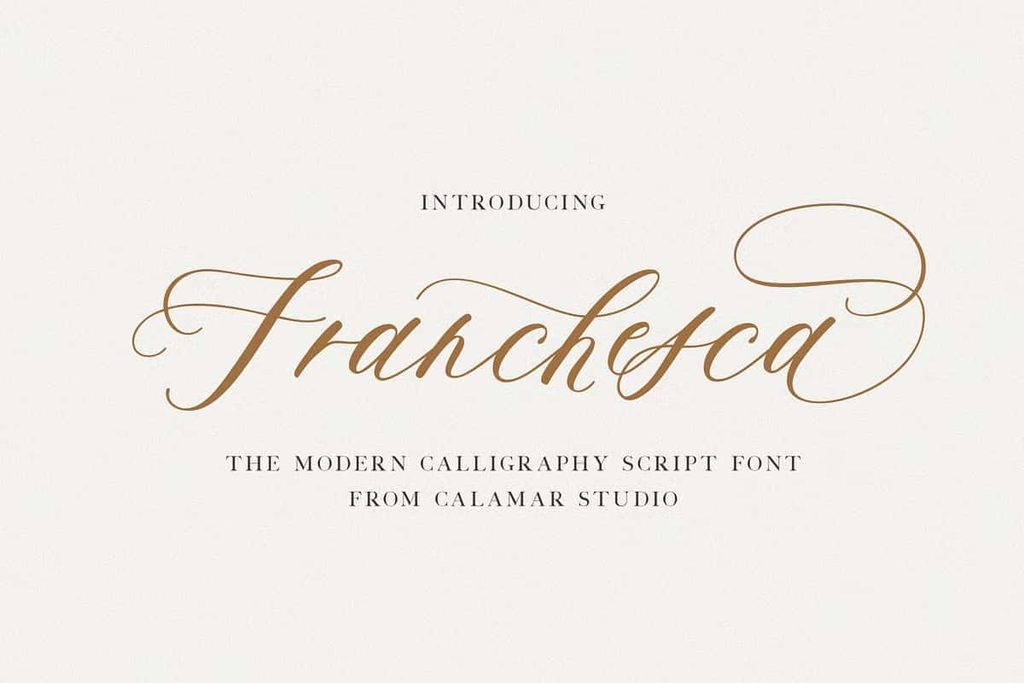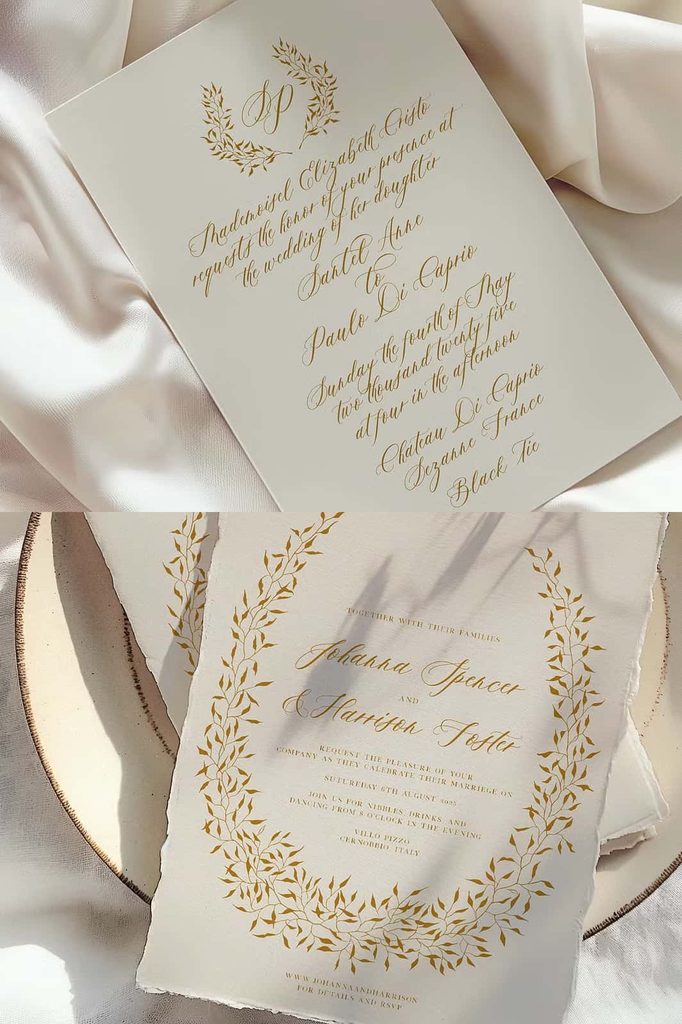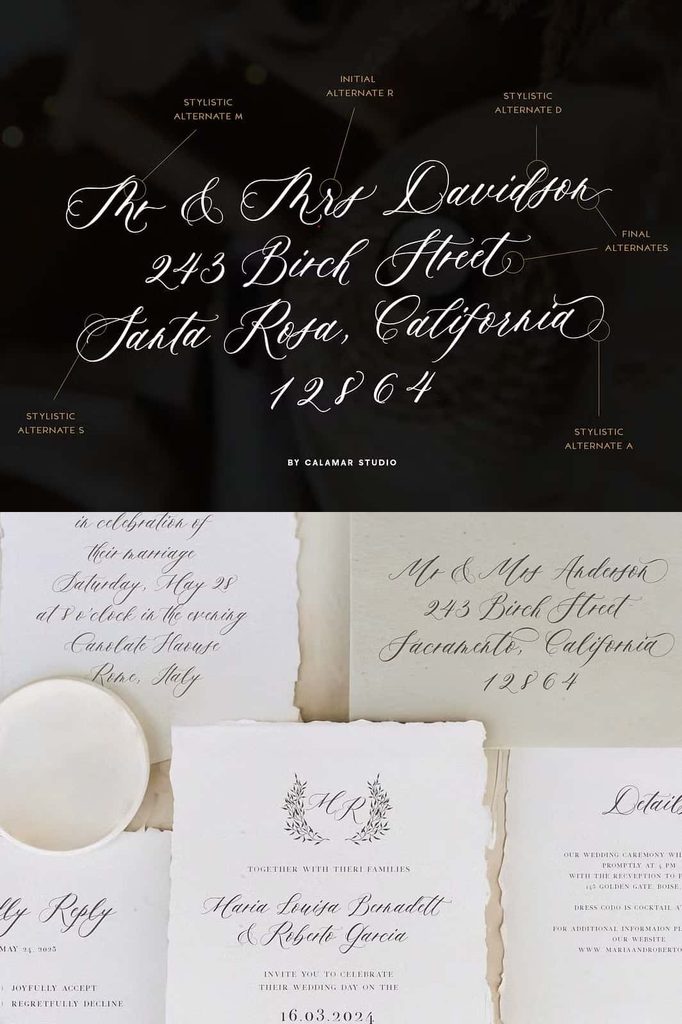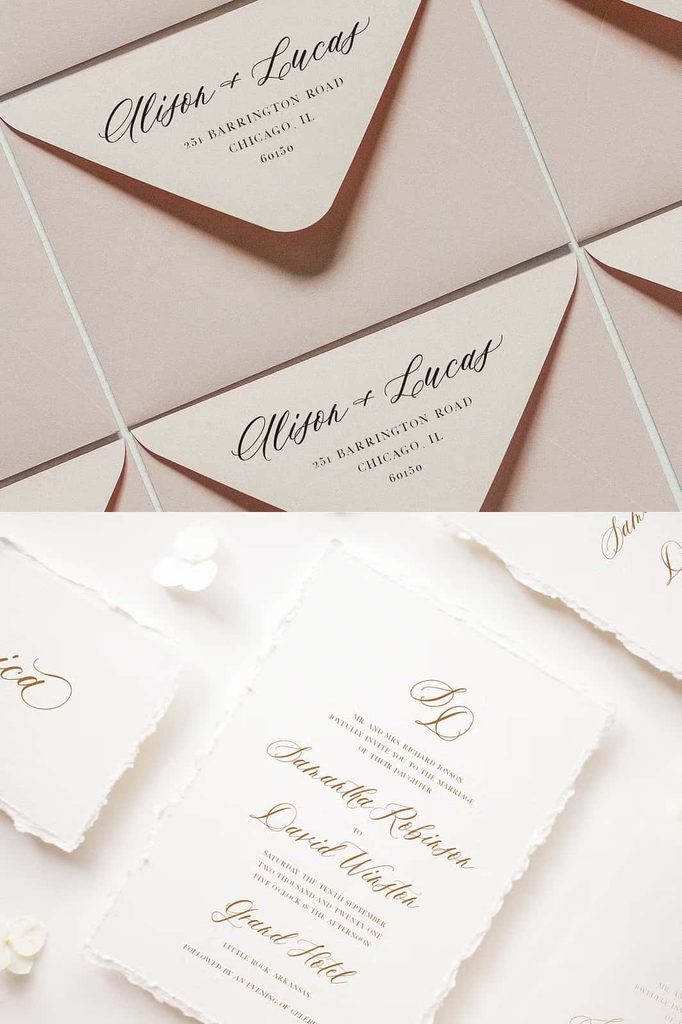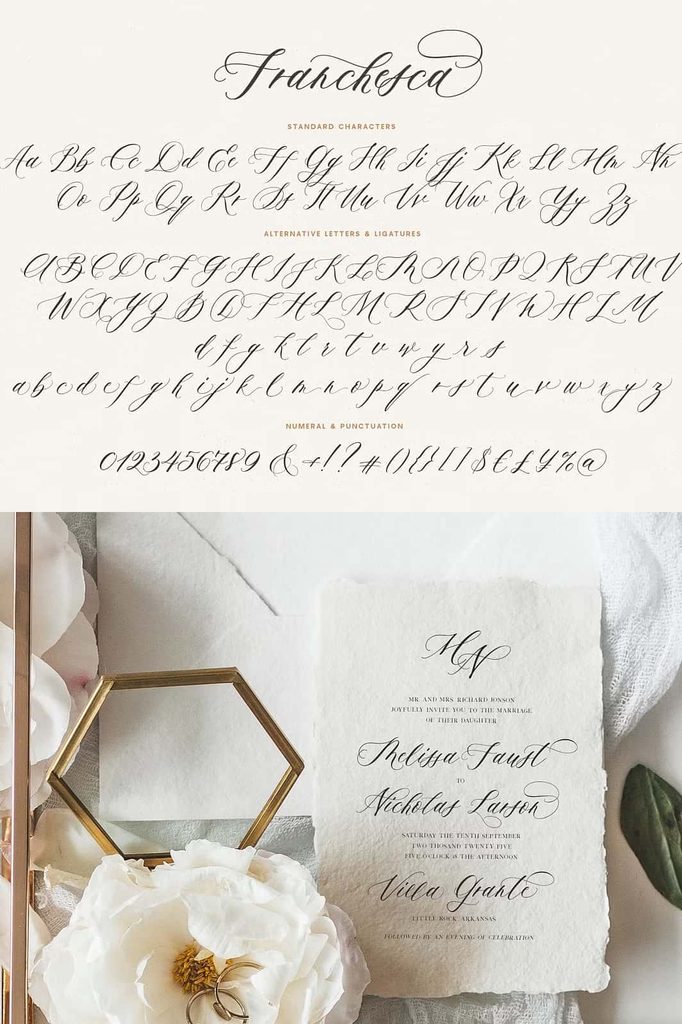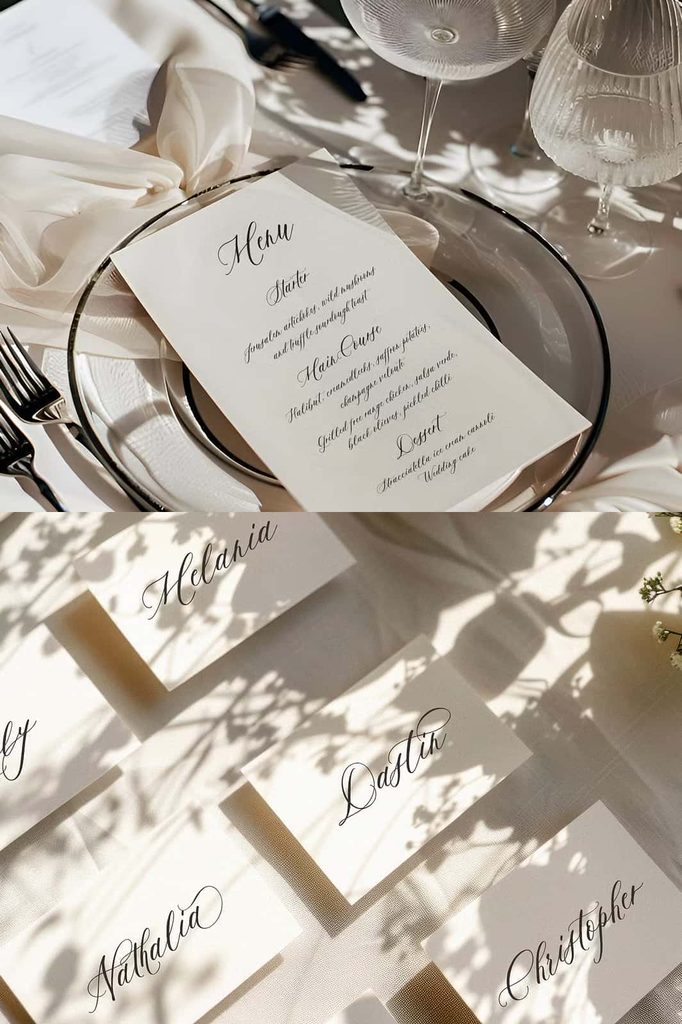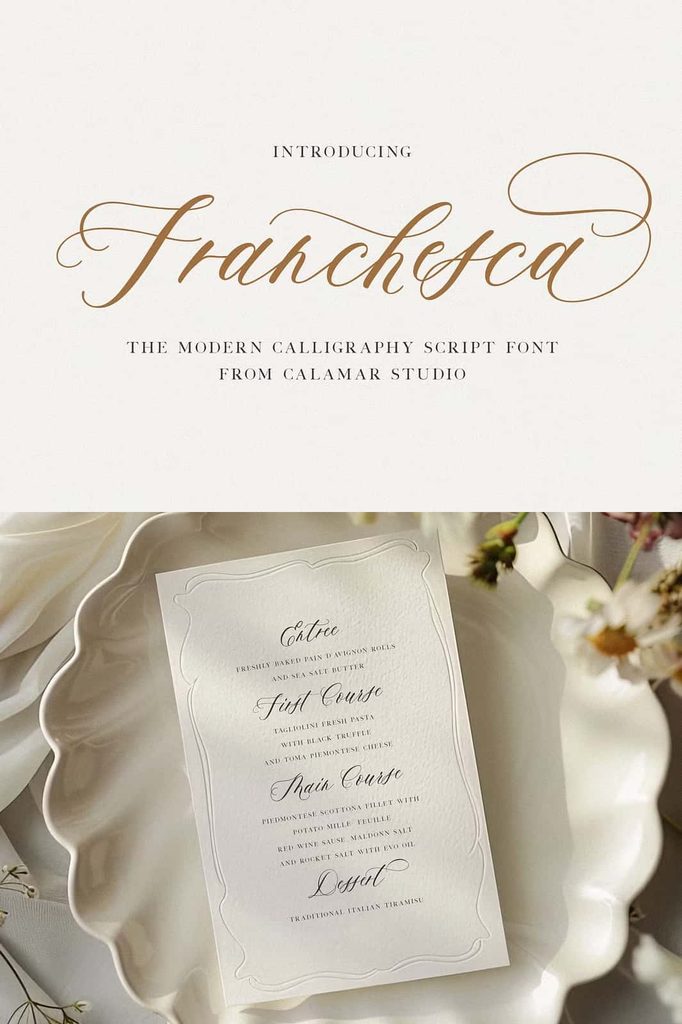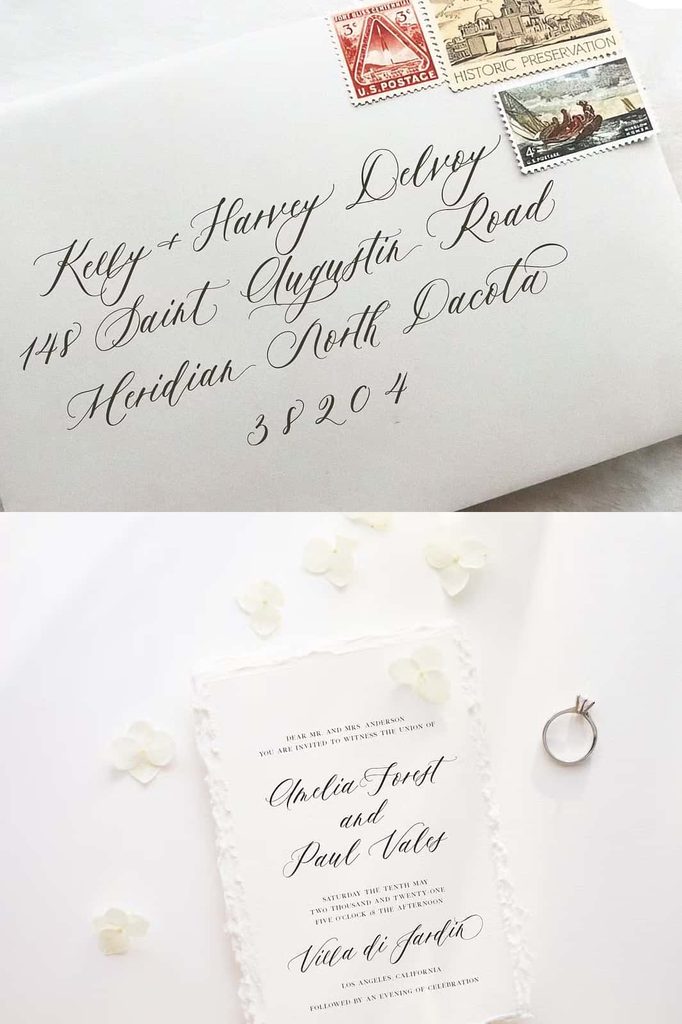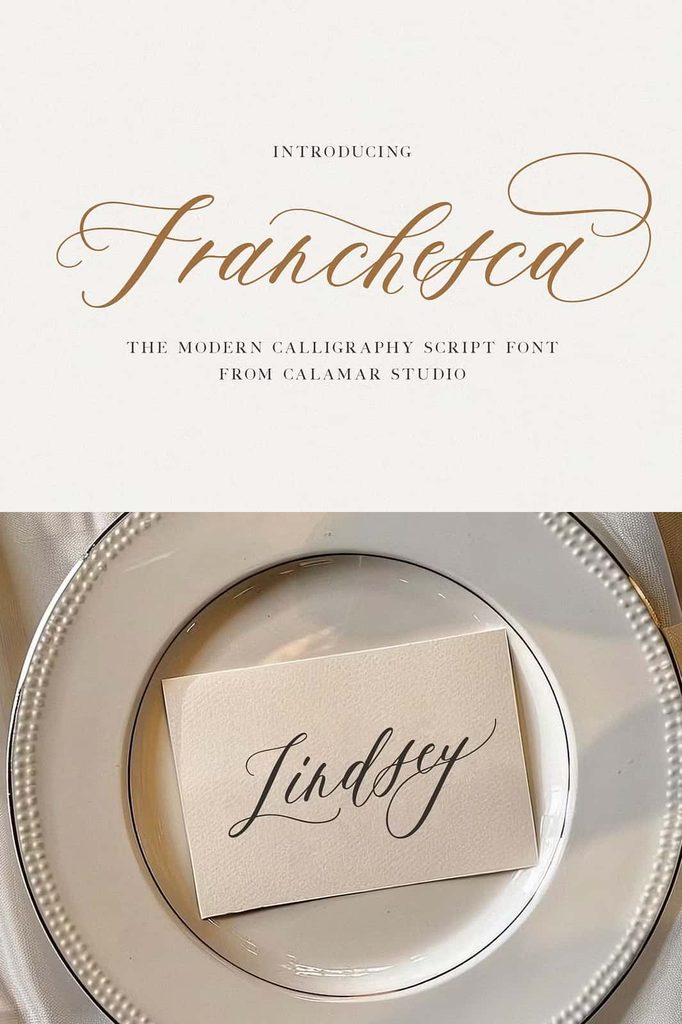
Franchesca – Light Wedding Calligraphy Script
Meet Franchesca, a light wedding calligraphy script created with a modern calligraphy style. This elegant script font brings a graceful handwritten character to your creative projects while keeping every word refined, readable, and visually appealing. Its delicate strokes and flowing letterforms create a romantic impression that works beautifully for wedding stationery, invitations, greeting cards, branding, packaging, and other sophisticated designs.
Franchesca combines the timeless beauty of traditional calligraphy with a contemporary approach. The smooth connections between letters give the font a natural handwritten appearance, while its light construction keeps the overall design clean and elegant. Whether you create a wedding invitation, a personal logo, a social media graphic, or a decorative quote, Franchesca can add a polished handwritten touch without making the design feel overly complicated.
Elegant Modern Calligraphy Style
Franchesca focuses on simplicity, elegance, and movement. The carefully shaped characters create a flowing rhythm that helps words look naturally handwritten. Its modern calligraphy style makes it especially suitable for projects that require a romantic and sophisticated visual identity.
The light strokes give Franchesca a delicate personality. They allow the font to complement other design elements instead of overpowering them. Pair the script with clean backgrounds, subtle ornaments, elegant layouts, or minimalist typography to create a professional and memorable result.
Perfect for Wedding Designs
Franchesca works particularly well for wedding-related projects. Designers can use this wedding calligraphy font to create invitations, save-the-date cards, RSVP cards, menus, thank-you cards, wedding signage, table numbers, place cards, and other stationery.
Its graceful appearance can also help create a consistent visual style throughout an entire wedding collection. Use Franchesca for names, headings, short phrases, or decorative text while combining it with a simple serif or sans-serif font for supporting information. This approach creates contrast and makes important details easier to read.
Versatile Script for Creative Projects
Although Franchesca has a strong wedding aesthetic, its possibilities extend far beyond wedding stationery. The modern script style can enhance logos, boutique branding, product packaging, greeting cards, posters, social media artwork, blog graphics, and personal stationery.
Use Franchesca when you want your typography to feel personal and handcrafted. Its flowing characters can give a small business a warm identity, add elegance to a product label, or make a short quote feel more expressive. The font adapts easily to both personal and commercial creative concepts.
Great for Invitations and Stationery
Invitation design benefits from typography that feels special and personal. Franchesca adds that handwritten quality while maintaining a modern appearance. Use it for names, event titles, invitation headings, and other prominent text to create an inviting first impression.
Ideal for Branding and Logos
Franchesca can also help brands communicate elegance, creativity, and a personal touch. Boutique businesses, wedding planners, photographers, beauty brands, handmade shops, lifestyle businesses, and creative studios can use its script character to build a distinctive visual identity.
Beautiful for Quotes and Decorative Typography
The flowing letterforms make Franchesca a strong choice for short quotes, inspirational messages, greeting cards, wall art, and decorative compositions. Combine the script with generous spacing and a simple layout to let its elegant forms become the main visual element.
Create a Sophisticated Typography Combination
For a balanced composition, pair Franchesca with a clean supporting font. A modern sans-serif can provide a fresh contrast, while a classic serif can create a more traditional editorial appearance. Keep Franchesca for the main decorative words and use the supporting typeface for longer paragraphs or detailed information.
This combination allows you to maintain the expressive personality of the script without sacrificing readability. It also gives designers greater flexibility when creating complete stationery sets, branding systems, promotional graphics, and digital content.
Bring a Personal Touch to Your Designs
Franchesca gives typography a handcrafted feeling that can make ordinary words feel more meaningful. Its modern calligraphy appearance works especially well when you want to communicate romance, elegance, warmth, and creativity.
From a beautifully designed wedding invitation to an elegant boutique logo, Franchesca provides a versatile foundation for sophisticated typography. Its light strokes and flowing forms make it easy to create designs that feel polished while retaining the charm of handwritten lettering.
Choose Franchesca when you want a light calligraphy script that feels elegant without becoming overly formal. Let its smooth strokes, graceful shapes, and contemporary style add a personal finishing touch to your next creative project.